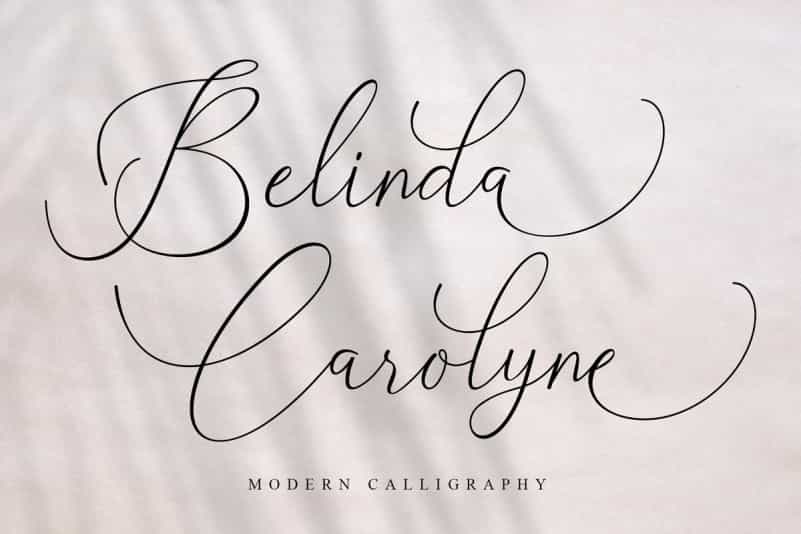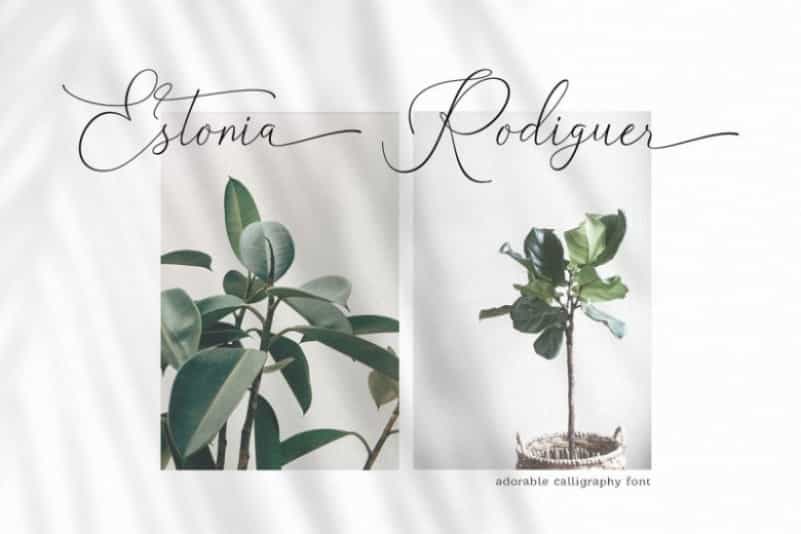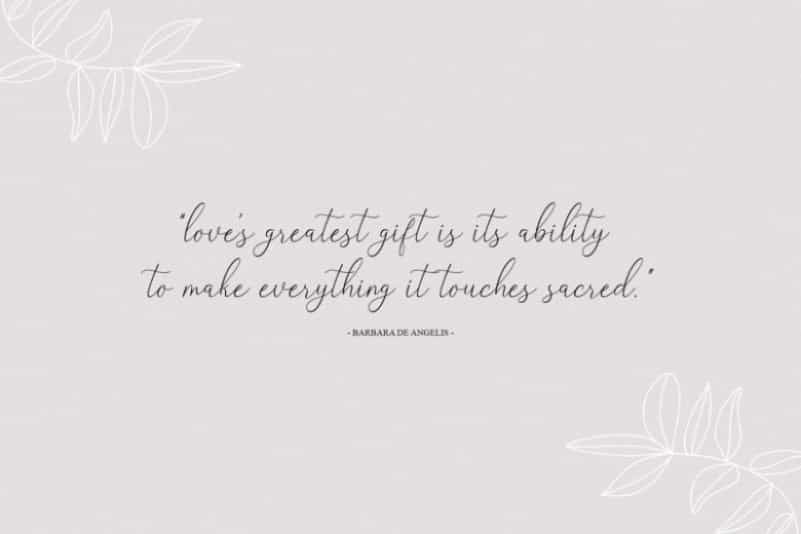
Belinda Carolyne is a new modern script font with an unsteady baseline. Trendy and feminine style. Belinda Carolyne is someone who looks beautiful on wedding invitations, thank you cards quotes, greeting cards and logos.